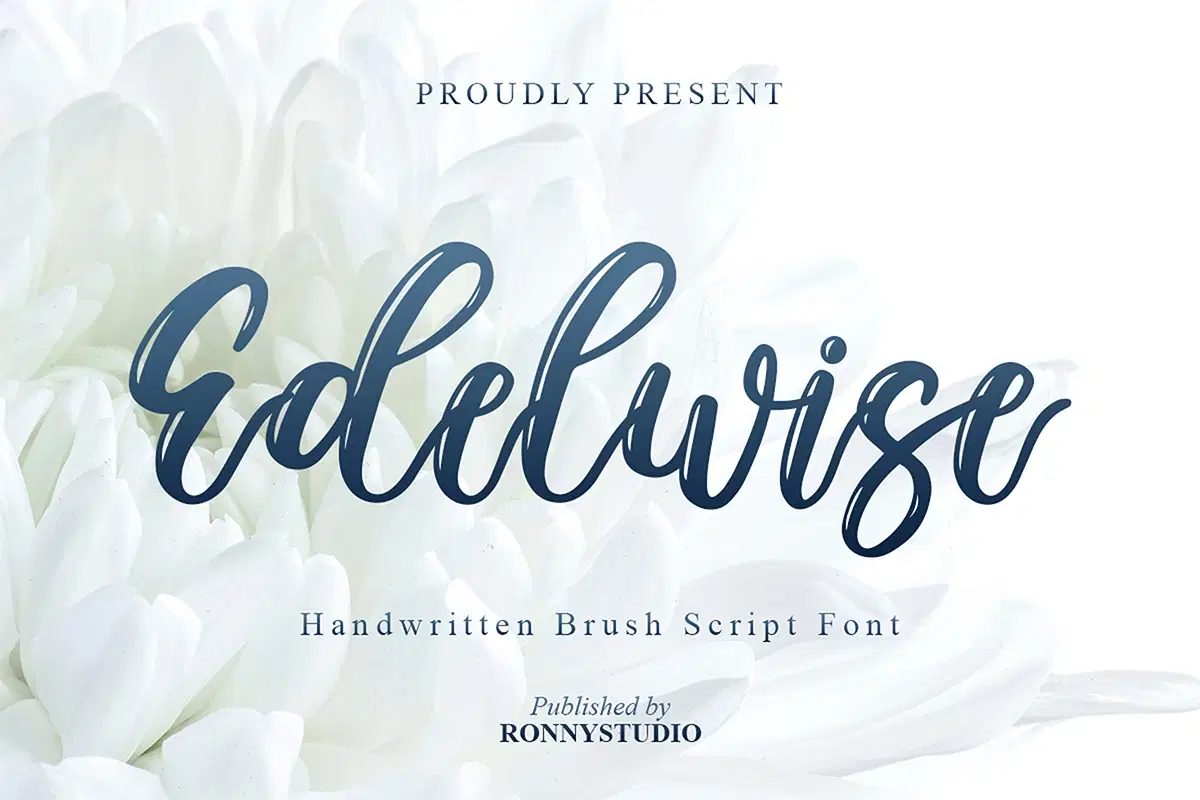
Edelwise is a stylish handwritten brush script font with smooth strokes and elegant curves. Perfect for branding, wedding invitations, logos, quotes, packaging, and chic lifestyle designs. Add a touch of natural beauty and modern handwriting to any project with Edelwise.